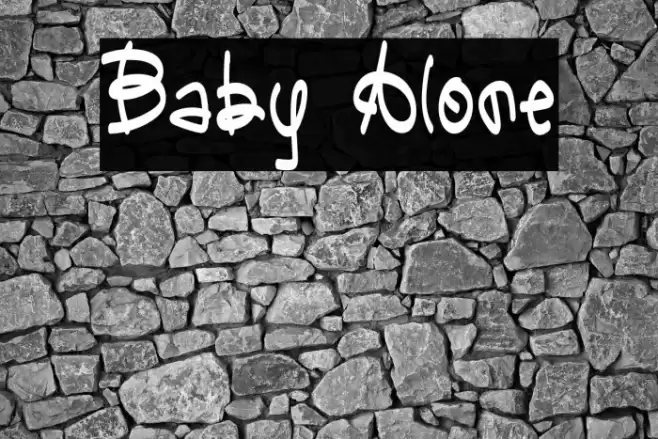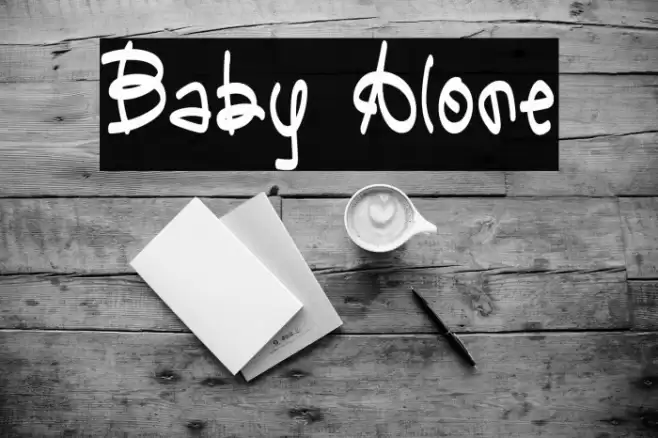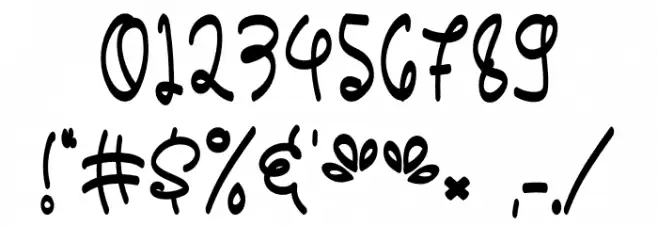
Baby Alone Font
Baby Alone Description
This playful and whimsical font features a handwritten style with a casual, carefree appearance. The letters are bold and rounded, with a slightly uneven baseline that adds to its charm. The uppercase and lowercase characters maintain a consistent style, while the numbers and special characters are designed to complement the overall aesthetic. The strokes are thick and uniform, giving the font a strong presence. Its unique character shapes and informal style make it ideal for projects that require a fun and approachable look.
A playful, handwritten font with bold, rounded characters and a whimsical style from Regular fonts.
- Proposed Projects: Ideal for children's books, playful branding, greeting cards, and informal invitations.
- Overall Style: Whimsical
- Use Case: Logos, Headlines, Informal Text